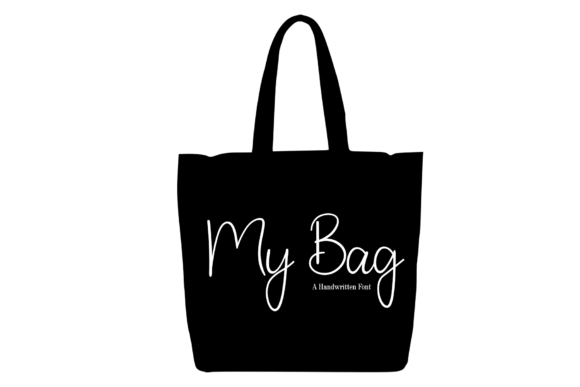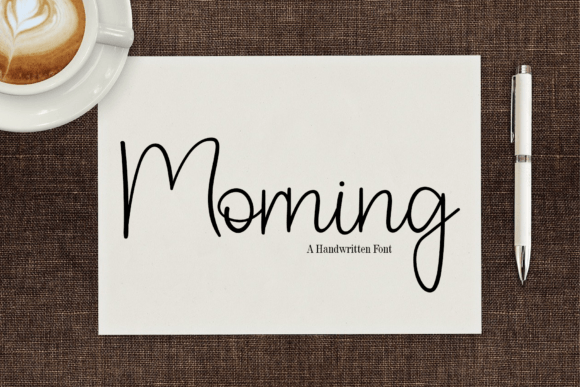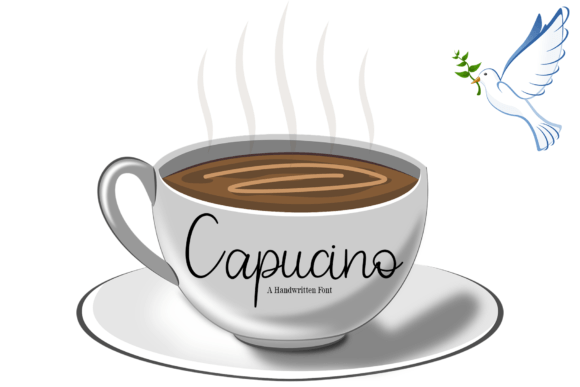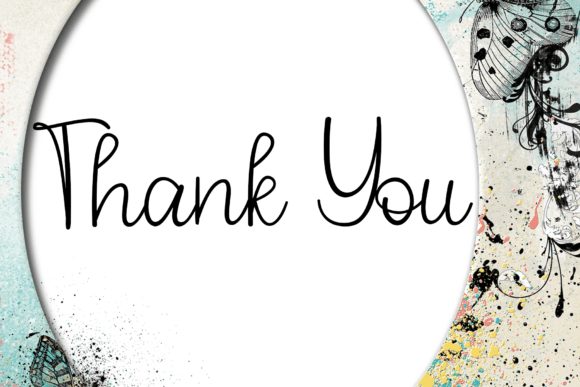
Diamon Font: Elevate Your Designs with Elegance and Sophistication
In the world of typography, a well-crafted font can make all the difference in transforming a design from ordinary to extraordinary. Introducing Diamon, a stylish handwritten font that exudes a contemporary atmosphere and impeccable form. With its balanced and varied characteristics, Diamon is the perfect choice for designers and crafters looking to add a touch of elegance and sophistication to their projects.
The Essence of Diamon Font
Diamon is a carefully crafted handwritten font that boasts a unique blend of modernity and classic charm. Its contemporary atmosphere is evident in its clean lines, subtle curves, and harmonious proportions. The font’s impeccable form is a testament to its designer, who has meticulously refined every detail to ensure a seamless reading experience. Whether you’re working on a branding project, a website, or a marketing material, Diamon is sure to impress.
Key Features of Diamon Font
- Balanced and Varied: Diamon features a range of letterforms, carefully designed to provide a natural flow and rhythm to your text. The font’s balance of thick and thin strokes, along with its varied letter spacing, creates a visually appealing effect that engages the reader.
- Contemporary Atmosphere: Diamon’s modern design makes it perfect for projects that require a fresh and current look. The font’s clean lines, subtle curves, and minimalist aesthetic ensure that your design stays on-trend and stylish.
- Impeccable Form: Diamon’s designer has paid close attention to every detail, ensuring that each letterform is meticulously crafted to provide a seamless reading experience. The font’s impeccable form makes it ideal for body text, headings, and titles.
- Handwritten Charm: Diamon’s handwritten nature adds a touch of warmth and personality to your designs. The font’s subtle imperfections and variations create a sense of human touch, making your project stand out from the crowd.
Why Choose Diamon Font?
With so many fonts available, why choose Diamon? Here are just a few reasons why Diamon stands out from the rest:
- Versatility: Diamon is a versatile font that can be used in a wide range of projects, from branding and advertising to web design and crafting.
- Elegance: Diamon’s elegant design makes it perfect for projects that require a touch of sophistication and refinement.
- Readability: Diamon’s clear and legible letterforms ensure that your text is easy to read, even at small sizes.
- Uniqueness: Diamon’s unique blend of modernity and classic charm sets it apart from other fonts, making it a great choice for designers looking to create something distinctive.
Using Diamon Font in Your Projects
So, how can you use Diamon font in your projects? Here are a few ideas to get you started:
- Branding: Use Diamon as a primary font for your brand identity, or as a accent font to add a touch of elegance to your logo.
- Web Design: Diamon is perfect for web design projects, including website headers, titles, and body text.
- Marketing Materials: Use Diamon in your marketing materials, such as brochures, flyers, and business cards, to add a touch of sophistication and refinement.
- Crafting: Diamon is a great choice for crafters, including papercrafters, card makers, and journalers, who want to add a touch of elegance to their projects.
In conclusion, Diamon font is a stylish and elegant handwritten font that is perfect for designers and crafters looking to add a touch of sophistication and refinement to their projects. With its balanced and varied characteristics, contemporary atmosphere, and impeccable form, Diamon is sure to impress. Whether you’re working on a branding project, a website, or a marketing material, Diamon is a great choice for anyone looking to elevate their design with elegance and style.